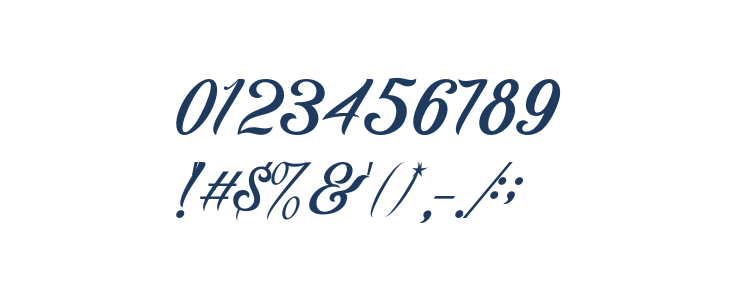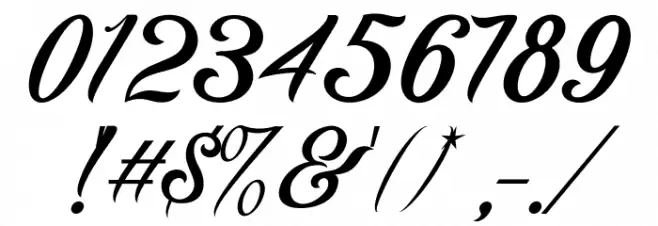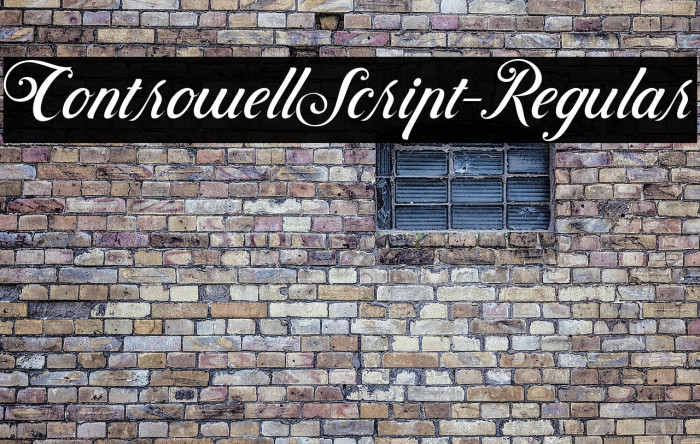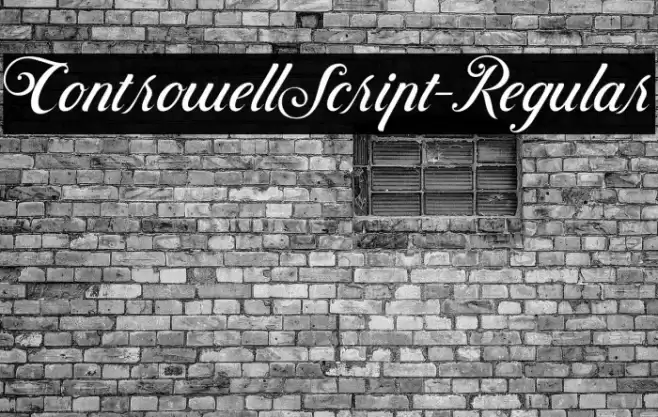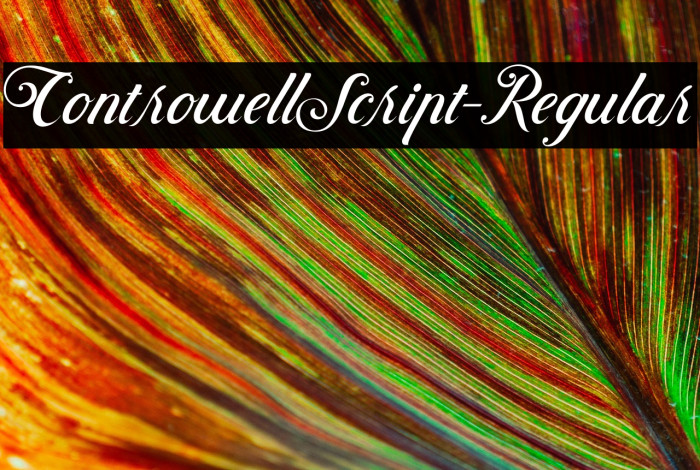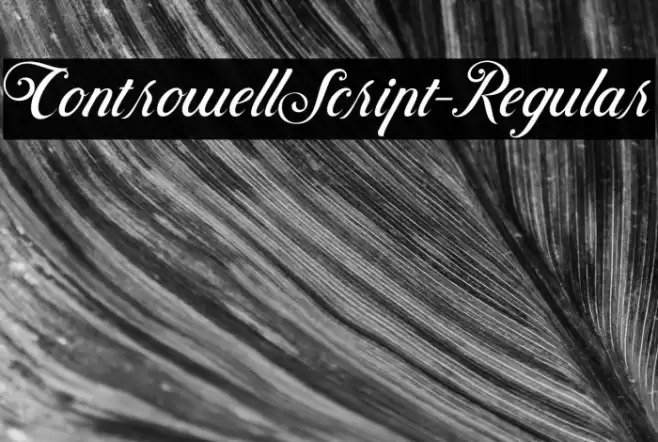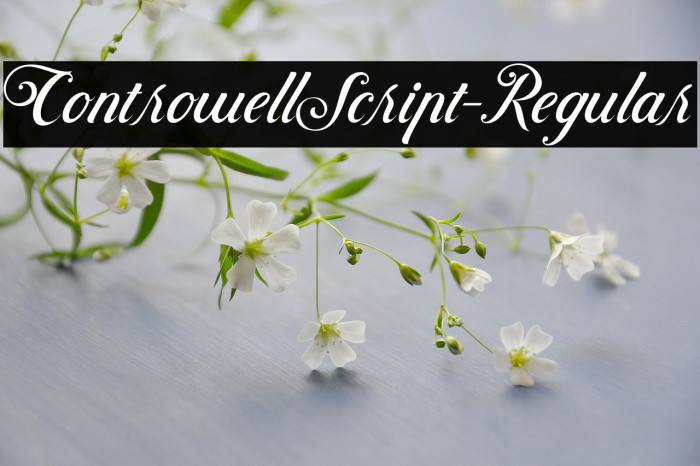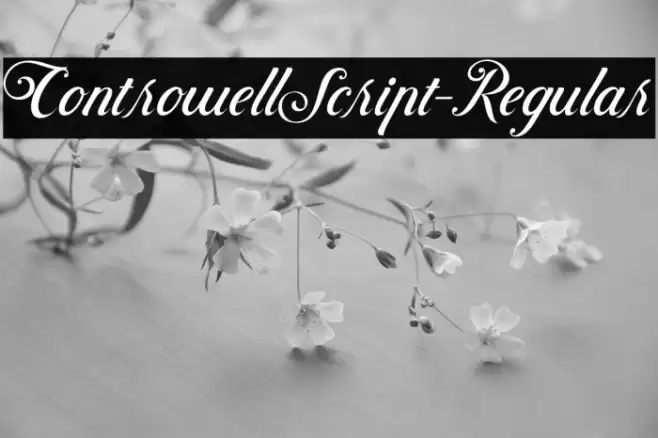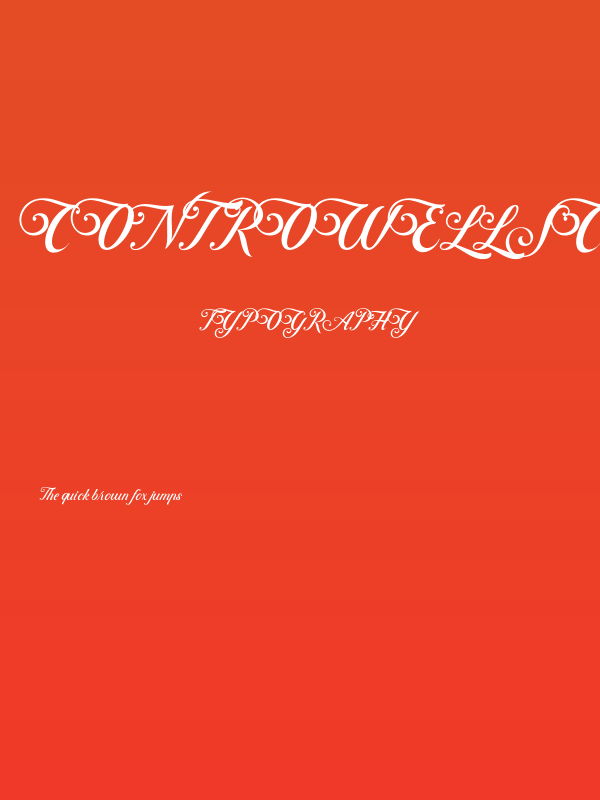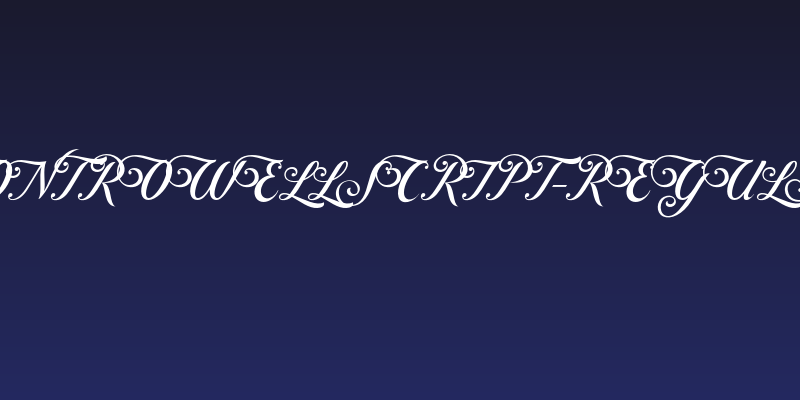
ControwellScript-Regular Font
ControwellScript-Regular Description
This elegant script font features a flowing, cursive style with intricate loops and flourishes that give it a sophisticated and artistic appearance. The uppercase letters are particularly ornate, with each character exhibiting unique swirls and embellishments that enhance its decorative quality. The lowercase letters maintain a smooth and connected flow, making it ideal for creating a cohesive and stylish text. The numerals and special characters are designed with the same attention to detail, ensuring consistency throughout the font. This font's overall aesthetic is both classic and decorative, making it suitable for a variety of creative applications.
| Proposed Projects | Ideal for wedding invitations, elegant branding, greeting cards, and decorative headings. |